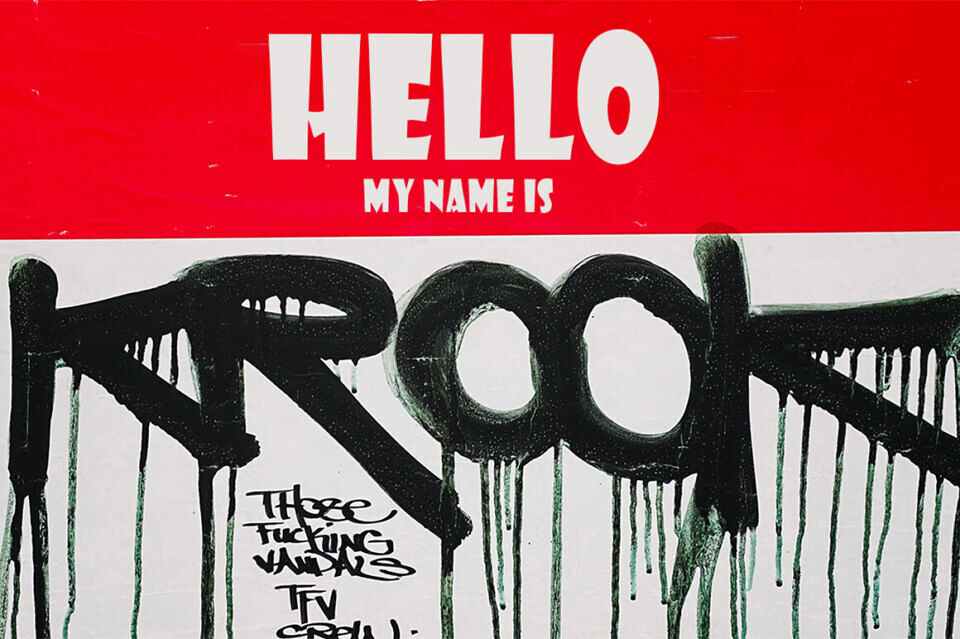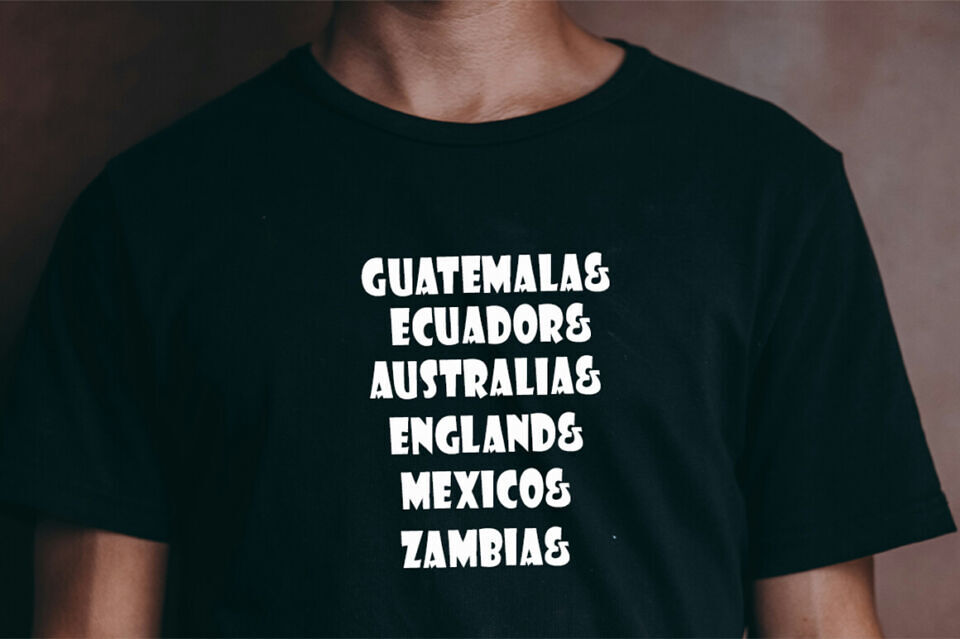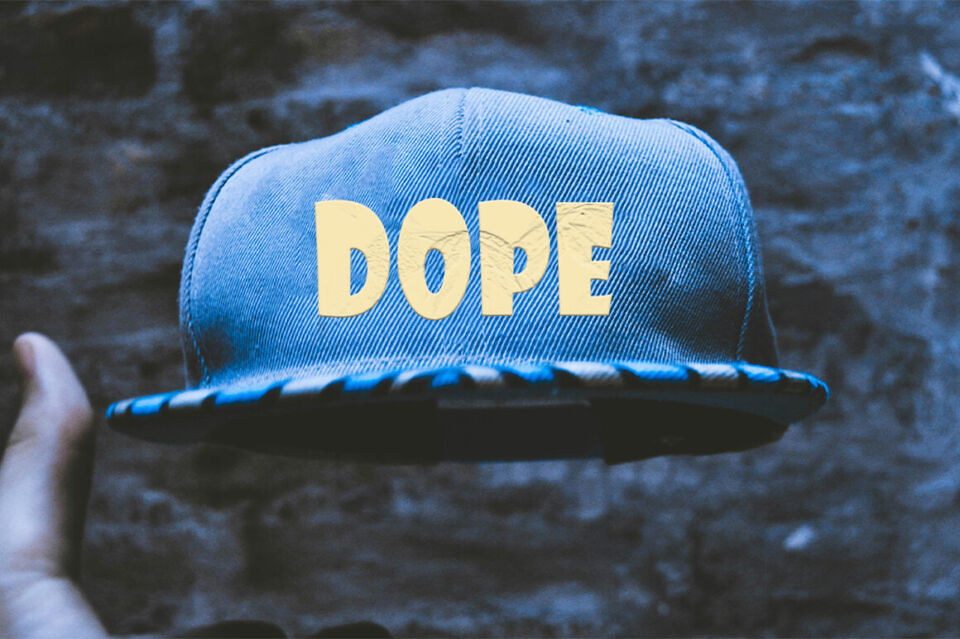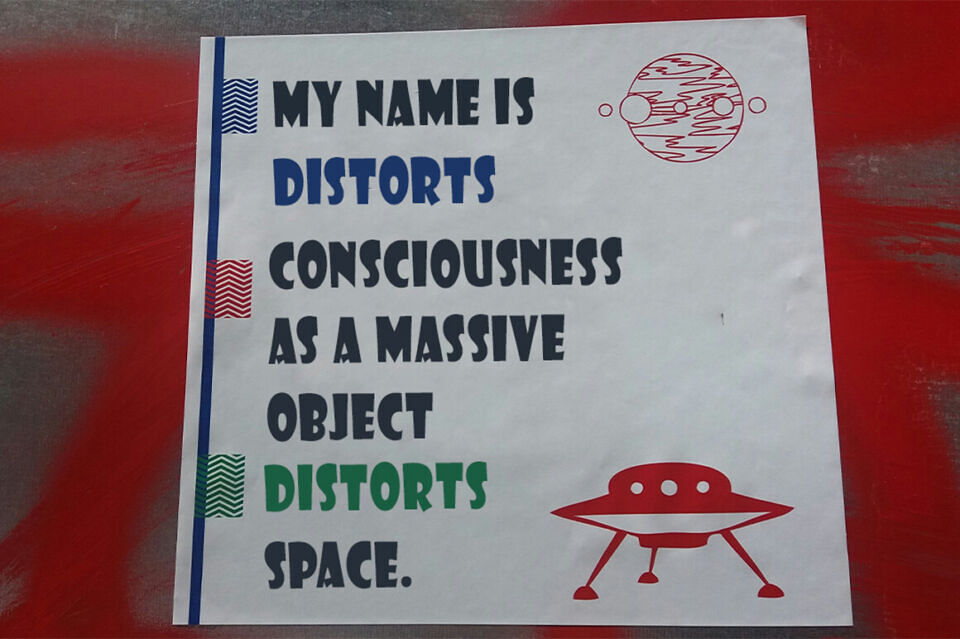
This isn’t just a font, it’s a statement. “Climate” stands with the unwavering confidence of a headline hollered across a bustling newsroom. Its bold, unwavering strokes carve out space, demanding attention with a raw, almost primal energy.
Forget whispers – “Climate” is the typographic equivalent of a thunderclap, a font that refuses to be ignored. Perfect for projects that need to shout their message from the rooftops, “Climate” brings a classic, industrial edge to any design, leaving an indelible mark.